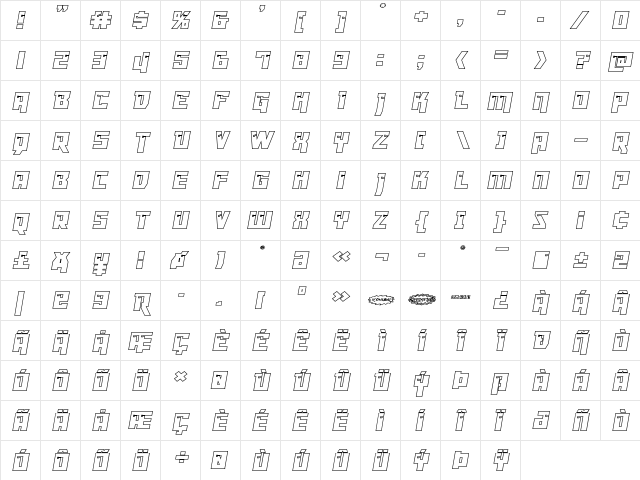
Dangerbot Outline Font Preview
Dangerbot Outline Outline
Design Context for Dangerbot Outline Typeface
Dangerbot Outline is built around its visual character rather than neutral utility — its distinctive forms are designed to make an impression at display sizes.
Font Pairing: Pair with a clean neutral sans-serif for body copy to let Dangerbot Outline's character lead without overwhelming the composition.
Pro Tip: Use Dangerbot Outline exclusively at display sizes — it was designed to be seen, not read at length. Let a neutral companion handle body copy.